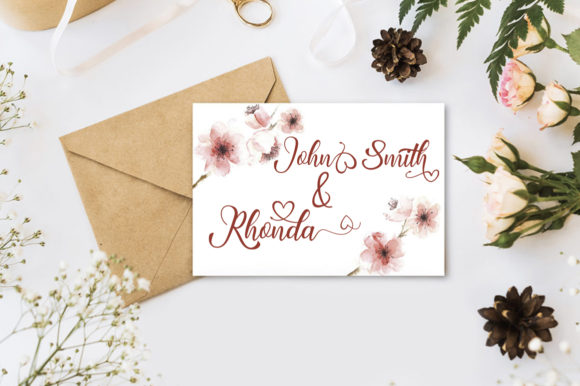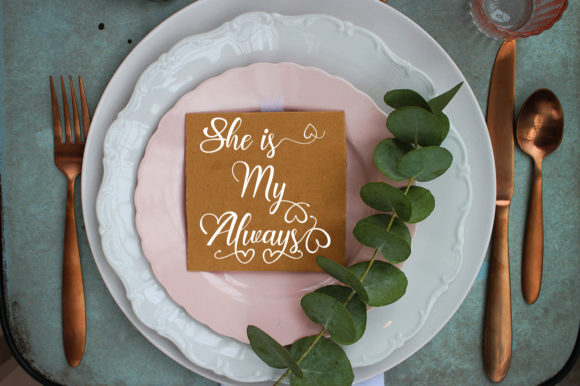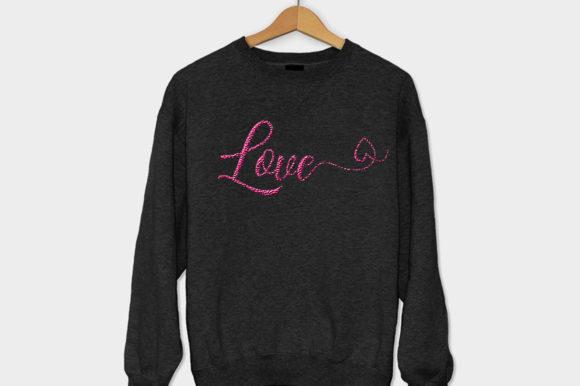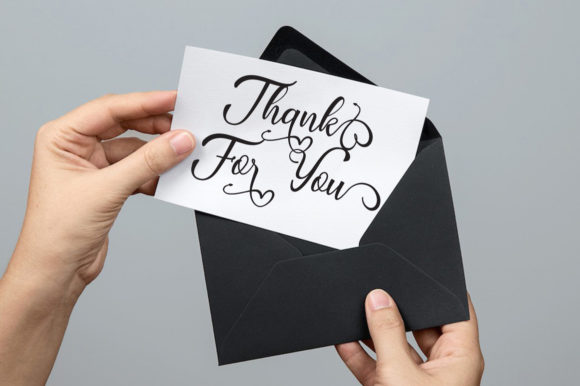
HomeScript FontsRhonda Font Script Fonts Rhonda Font FacebookXPinterestWhatsApp Rhonda Font Poster 2 Rhonda Font Poster 3 Rhonda Font Poster 4 Rhonda Font Poster 5 About Rhonda Font Rhonda feels playful and elegant which makes it a must-have crafting font. Get inspired by its romantic charm! DOWNLOAD ON CREATIVE FABRICAThis font is sold and delivered by Creative Fabrica. Font Canyon may earn a commission if you buy through this link. People also explored Patrick Time Font Marokorange Font Champagne Can Cooler Mockup Kings Man Font Wispy Night Font Ceremony Font Elevena Font Just You Font String 356 0 TagsRhonda Font Previous articleMinted FontNext articleNadia Font LEAVE A REPLY Cancel reply Comment: Please enter your comment! Name:* Please enter your name here Email:* You have entered an incorrect email address! Please enter your email address here Website: Save my name, email, and website in this browser for the next time I comment. Personal Use Free Cosmos Personal Use Free Read more about this font Loving Personal Use Free Read more about this font Abuget Free Script Personal Use Free Read more about this font Amrina Personal Use Free Read more about this font BLOG Exploring Font Trends Shaping Communication in the Digital Era Fonts, like all design elements, are subject to trends. They play a crucial role in communicating a brand's personality,... Transform Your Website: Elevate Your Typography with 7 Best Web Font Generators Using Fonts in Digital Marketing: Tips to Strengthen Your Brand Identity Best Fonts for T-Shirt Design – Top 2025 Picks